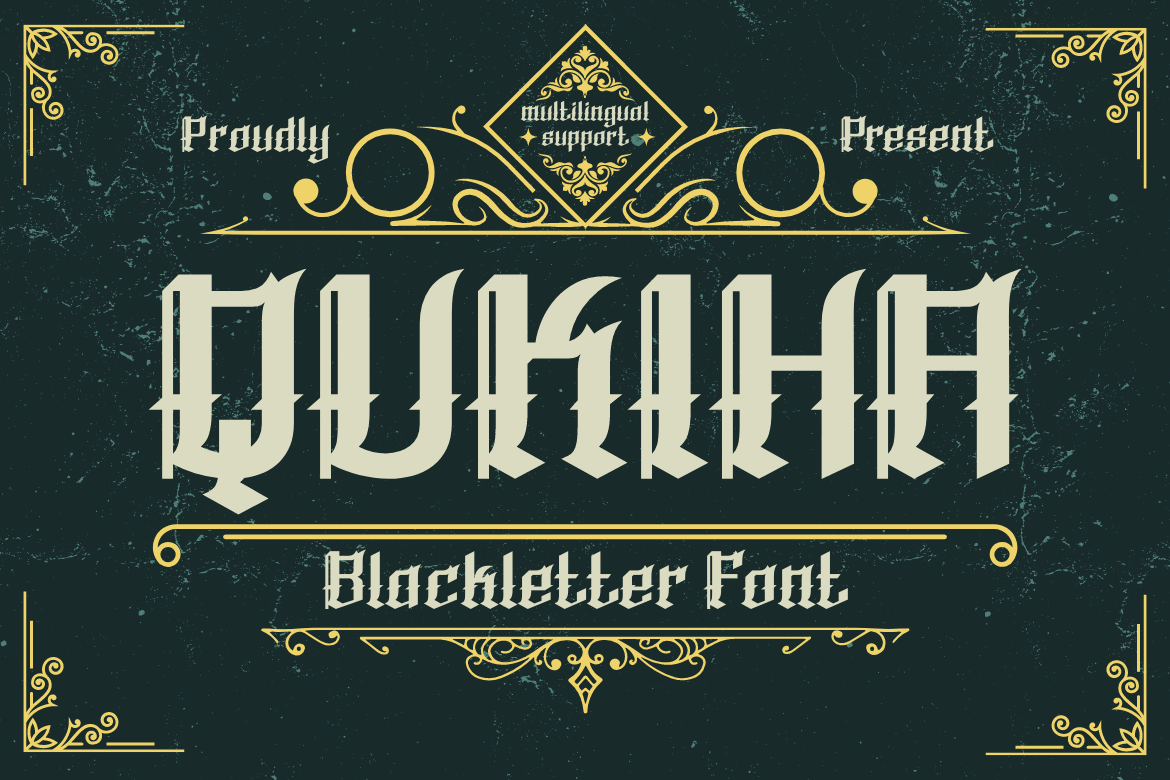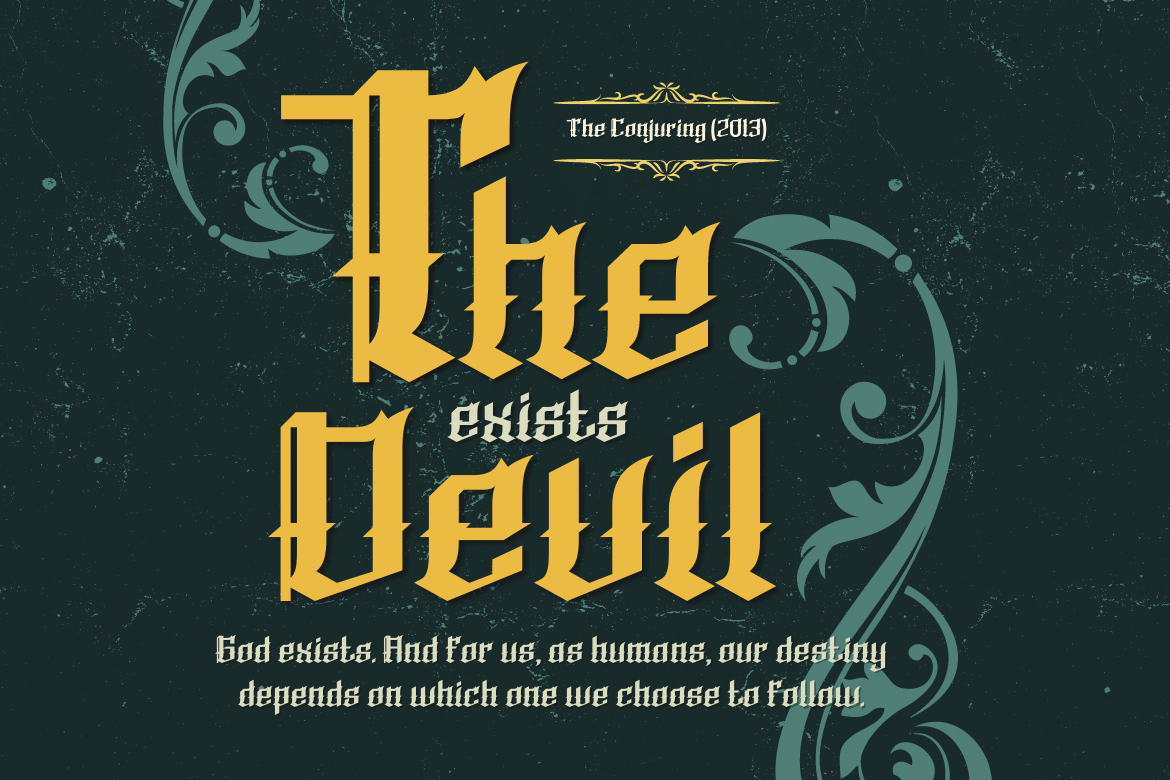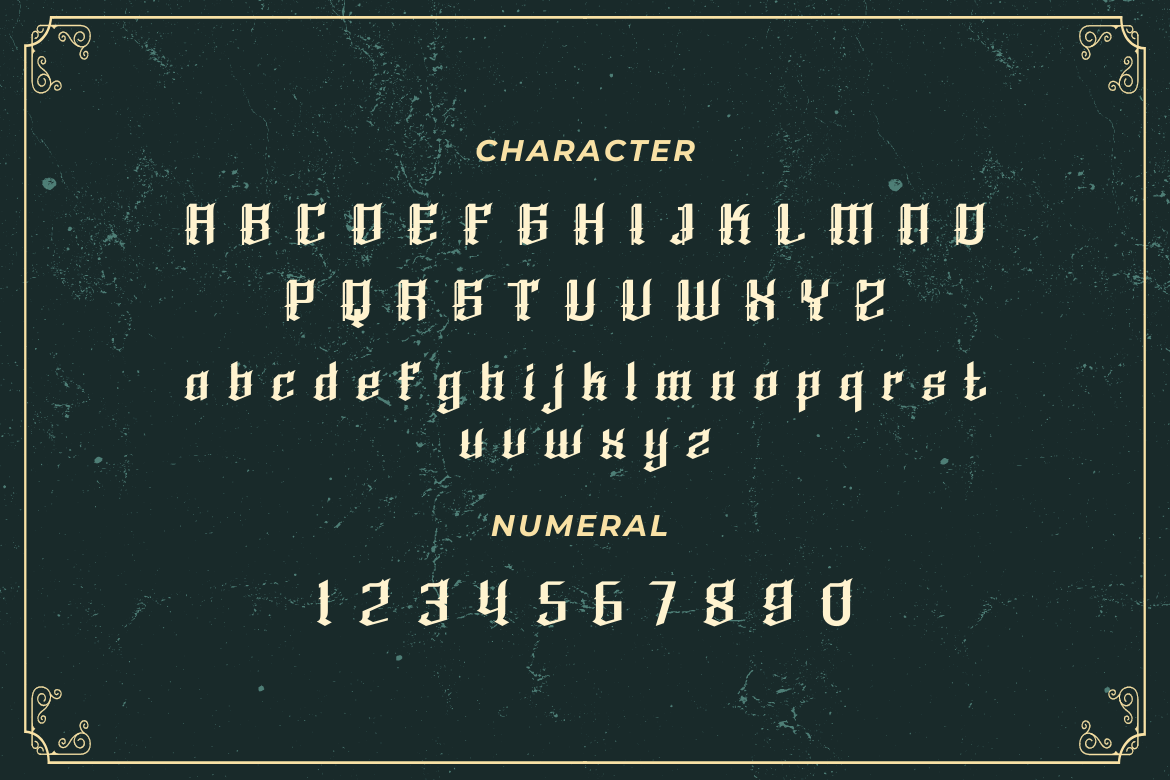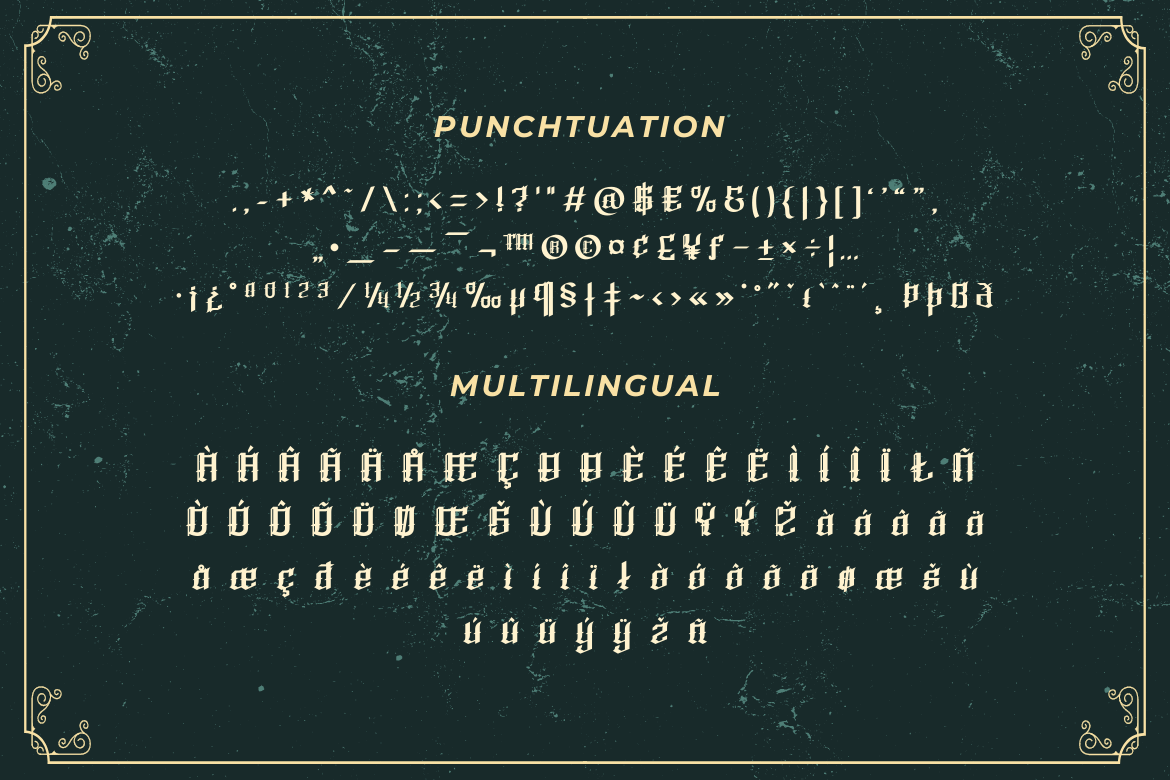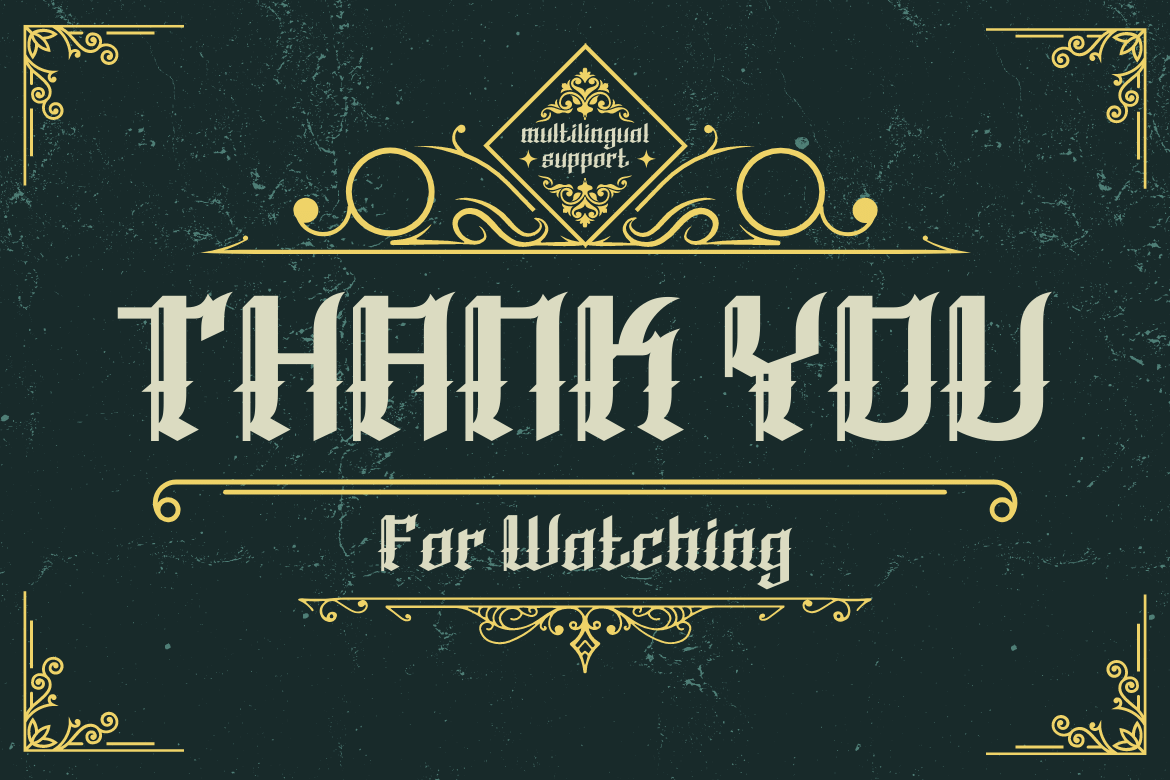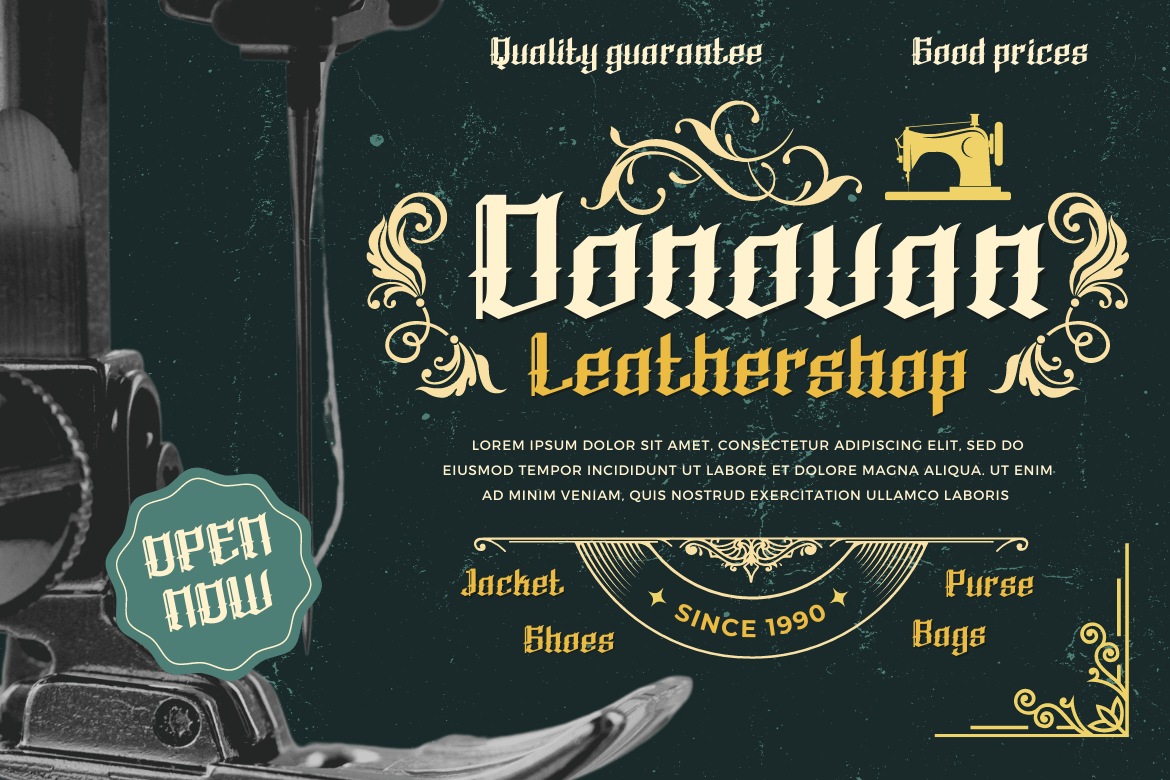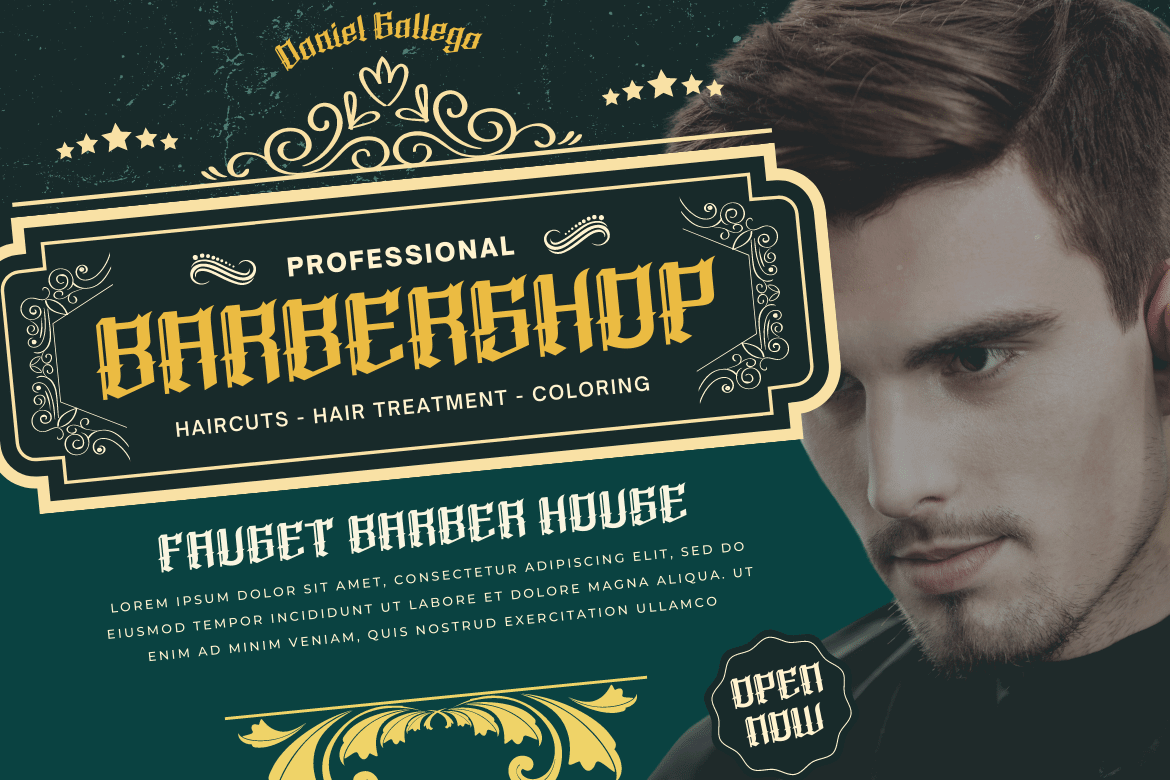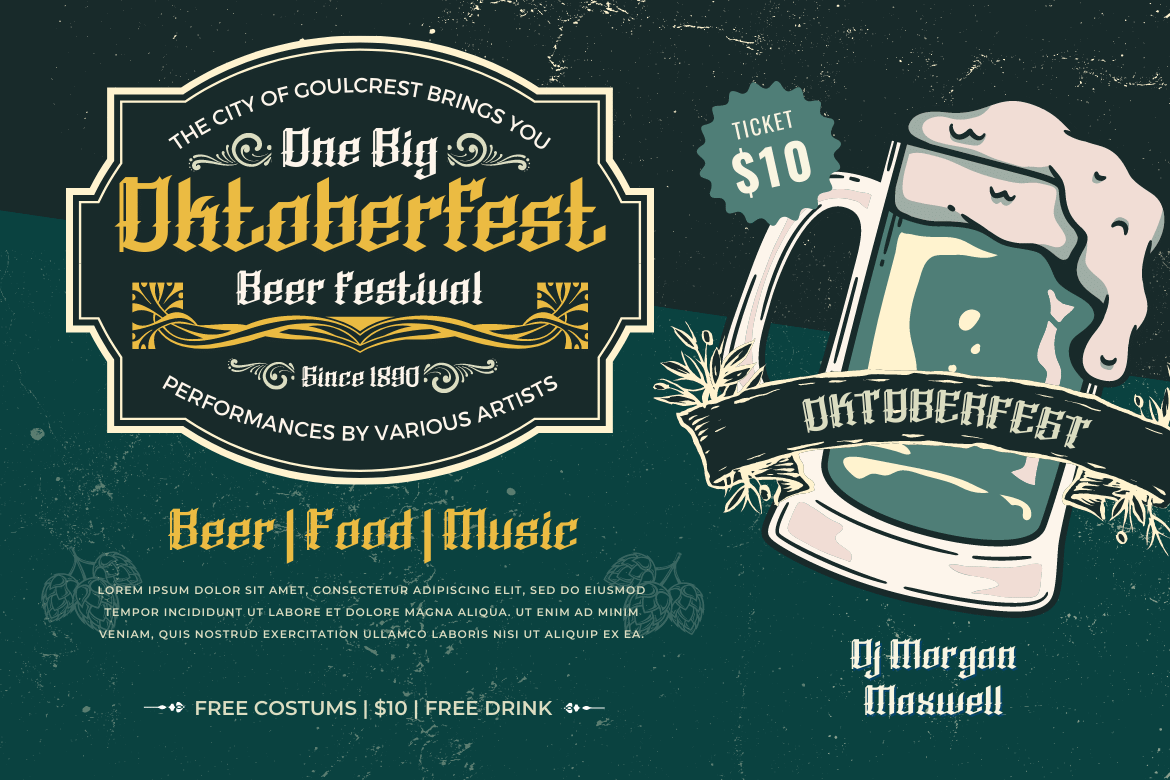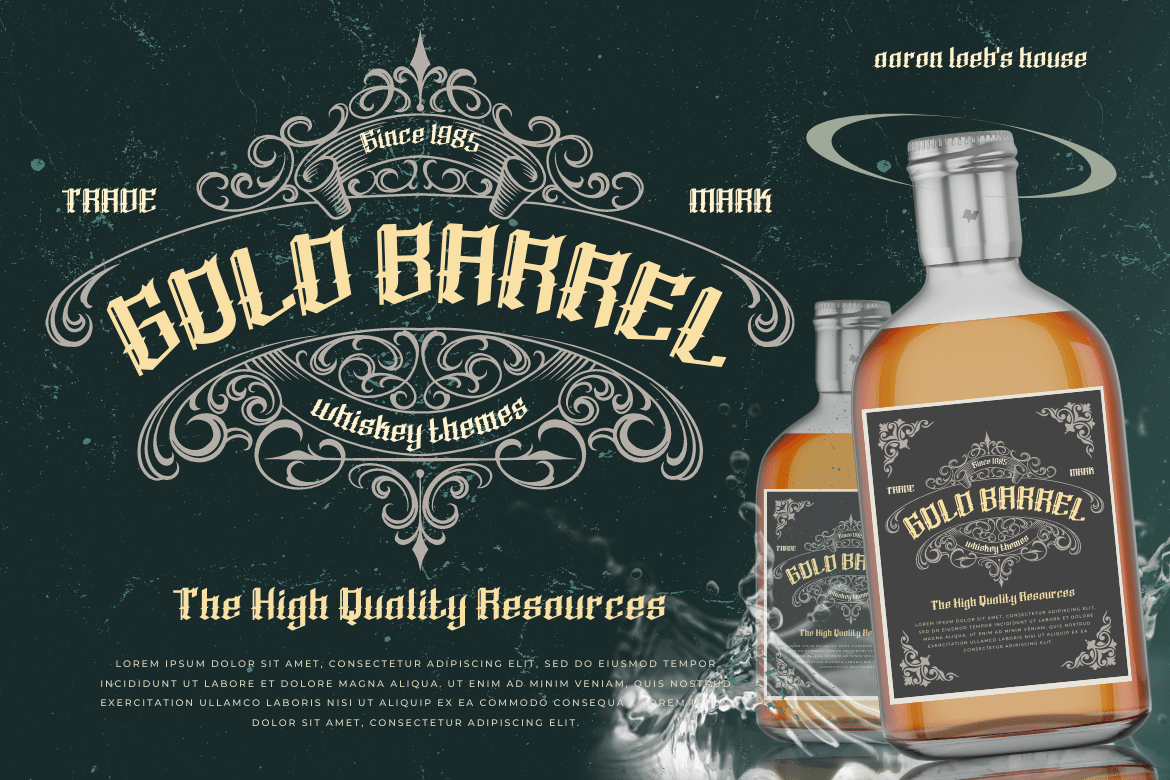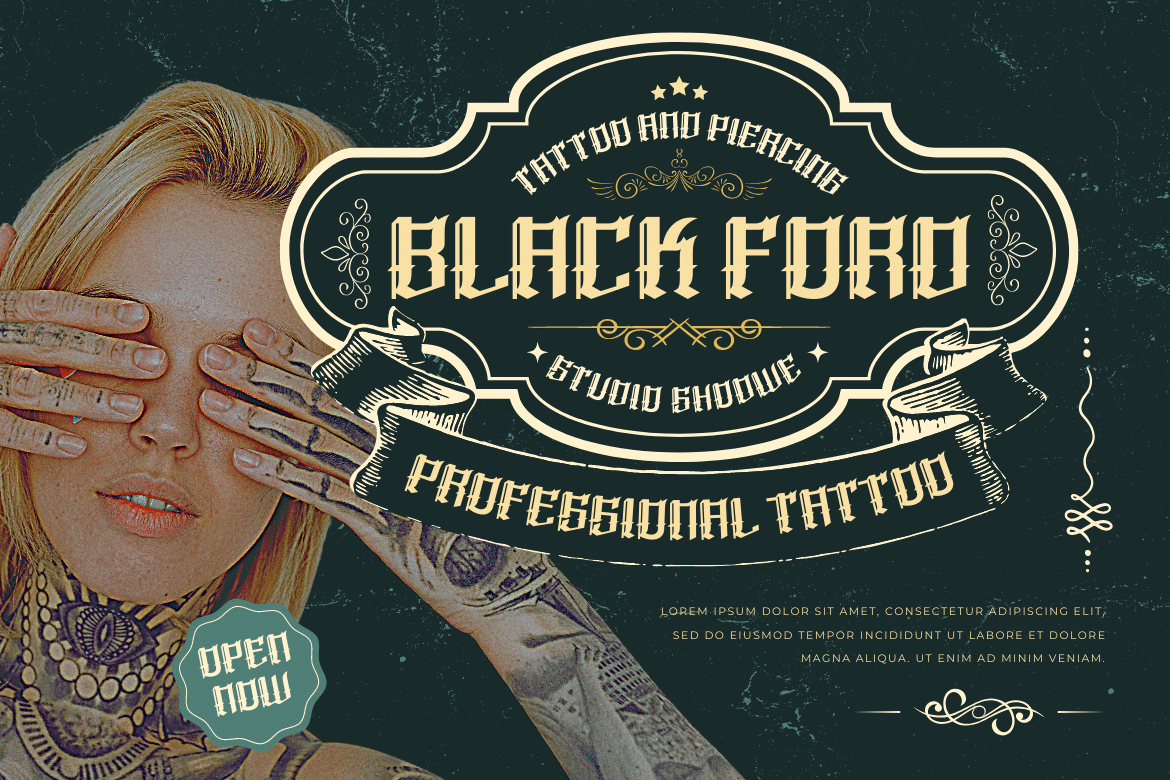
QUKIHA – Tatto Blackletter font
Looking for the perfect font for your next gothic project? Do not look elsewhere than QUKIHA! A great place to look for fonts for your most recent logo, label, badge, music video, or movie is the QUKIHA Blackletter font.
You can select the ideal word for your project by choosing from the beautiful and harmonious shapes available in the QUKIHA font. The capital letters are impressive, and the letters are slick and fashionable. QUKIHA Blackletter is a necessity if you’re designing labels, posters, or other things. They are also of a professional caliber, making them ideal for any design task.